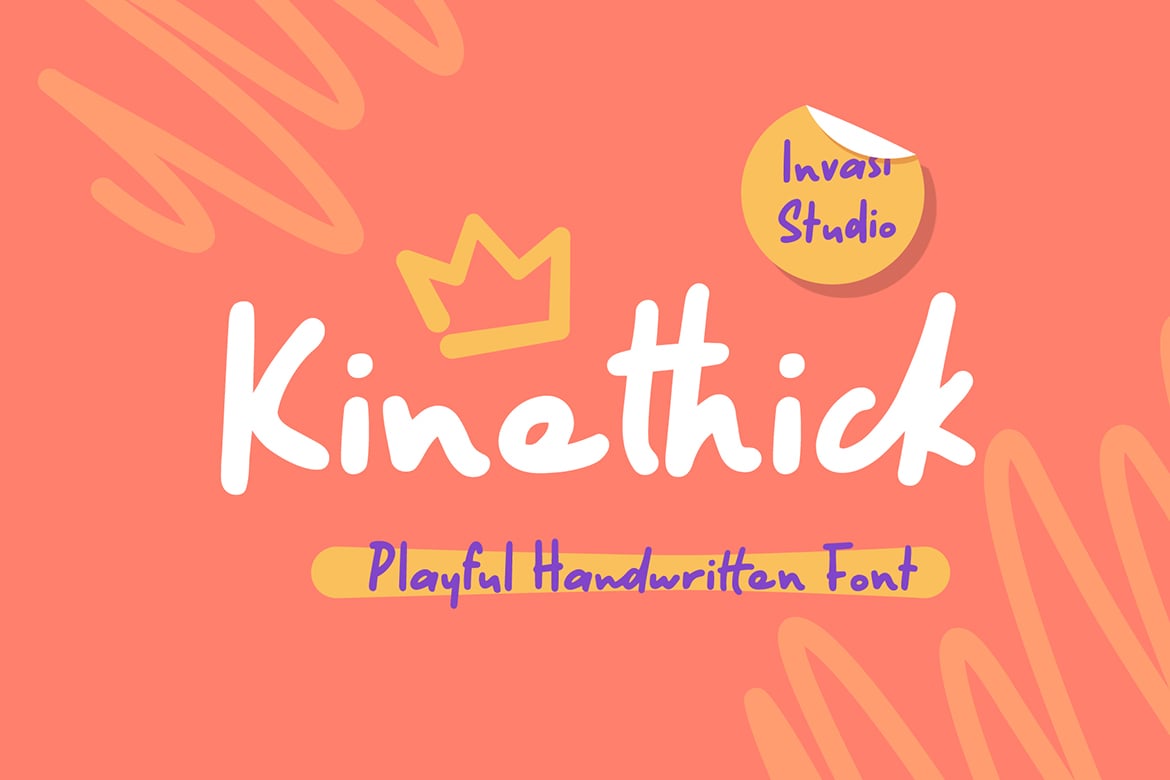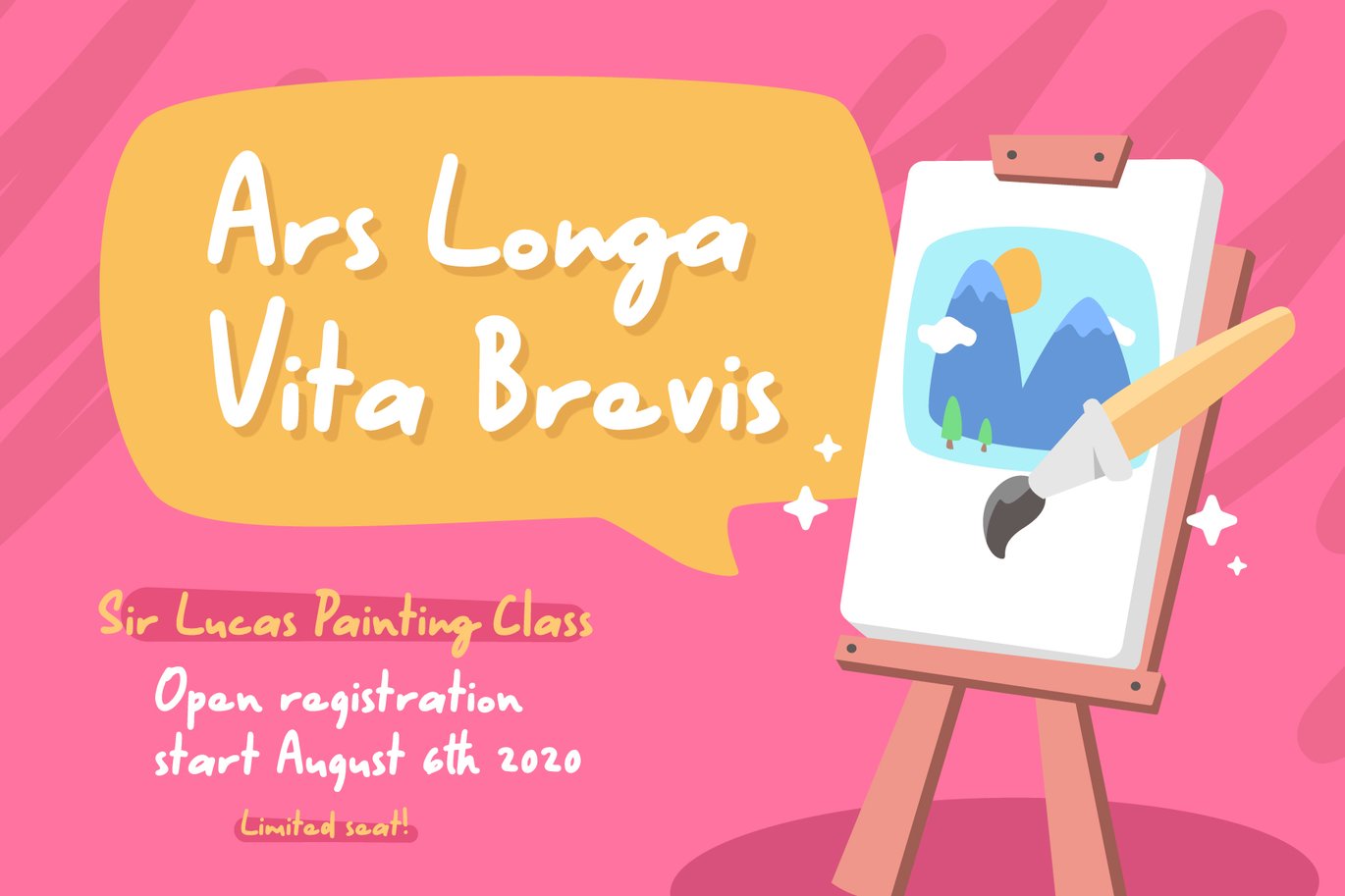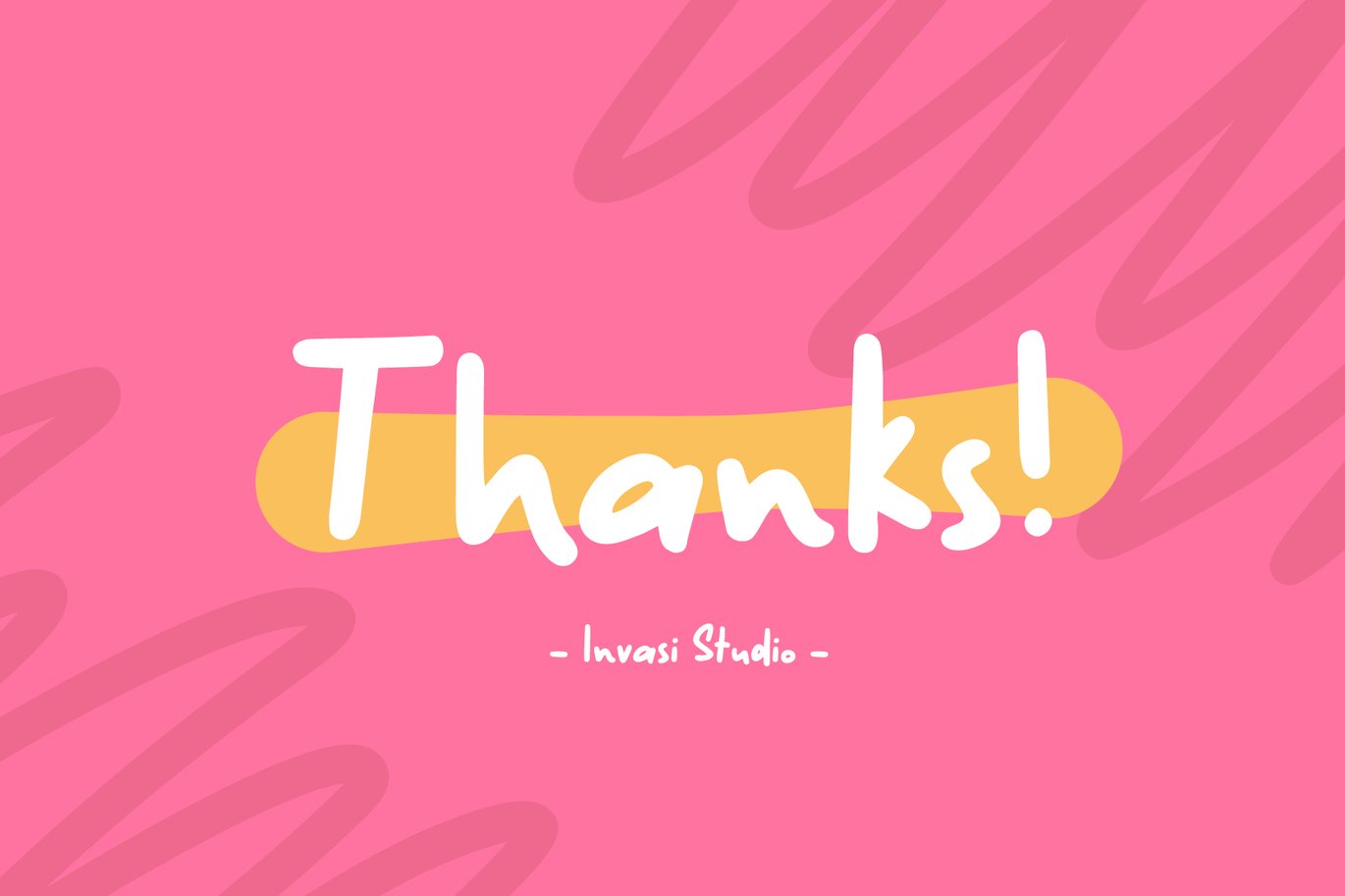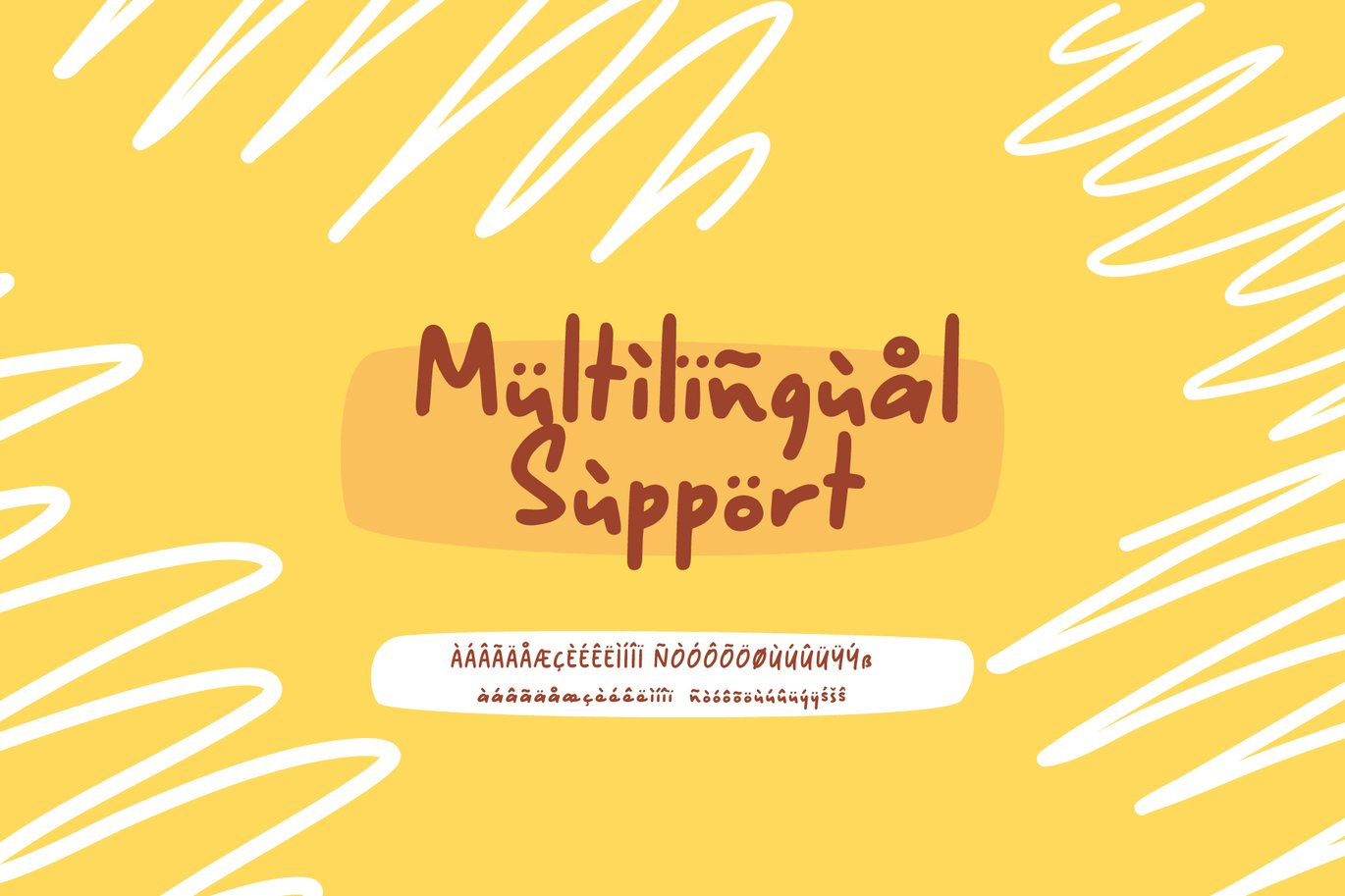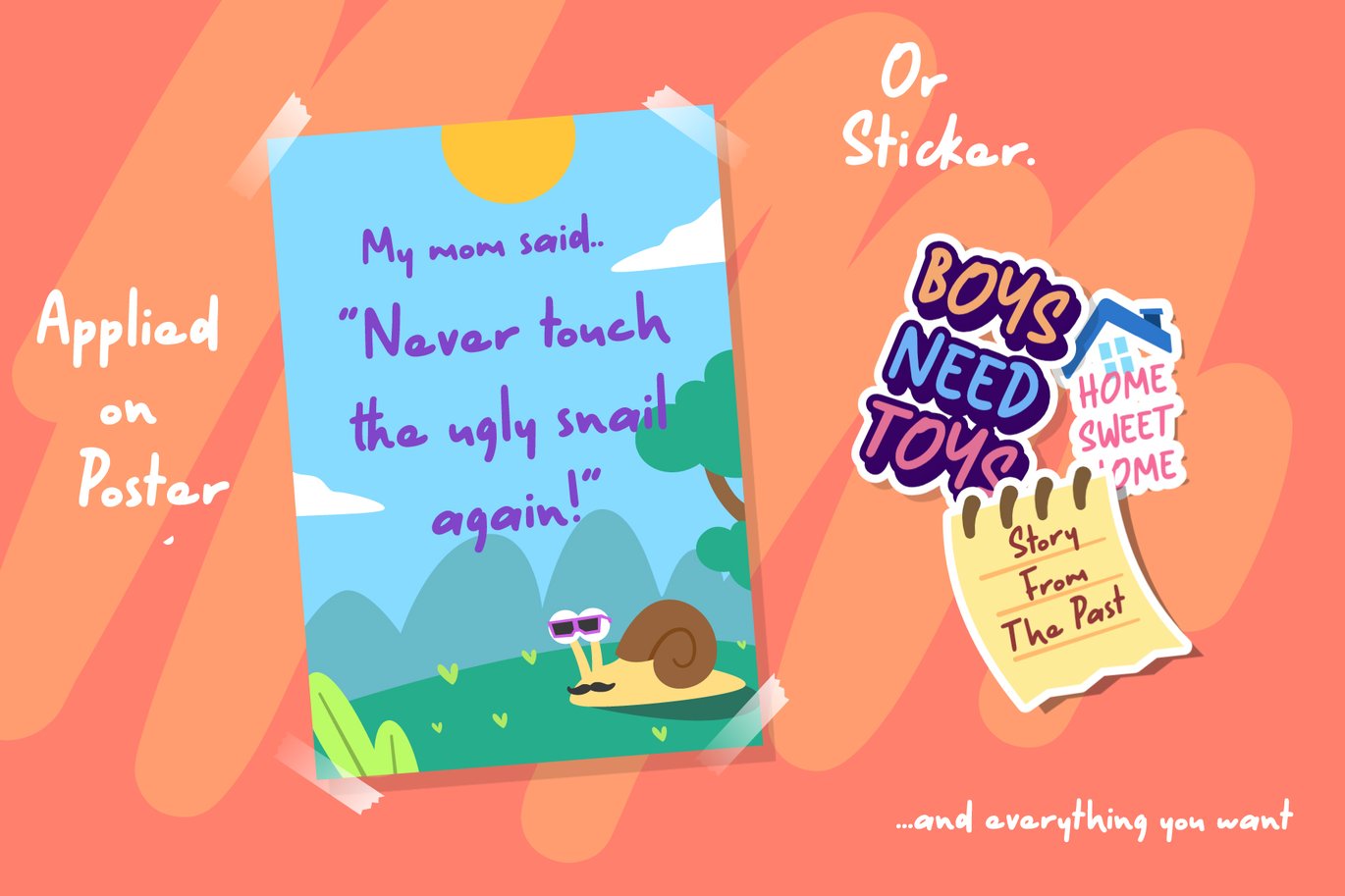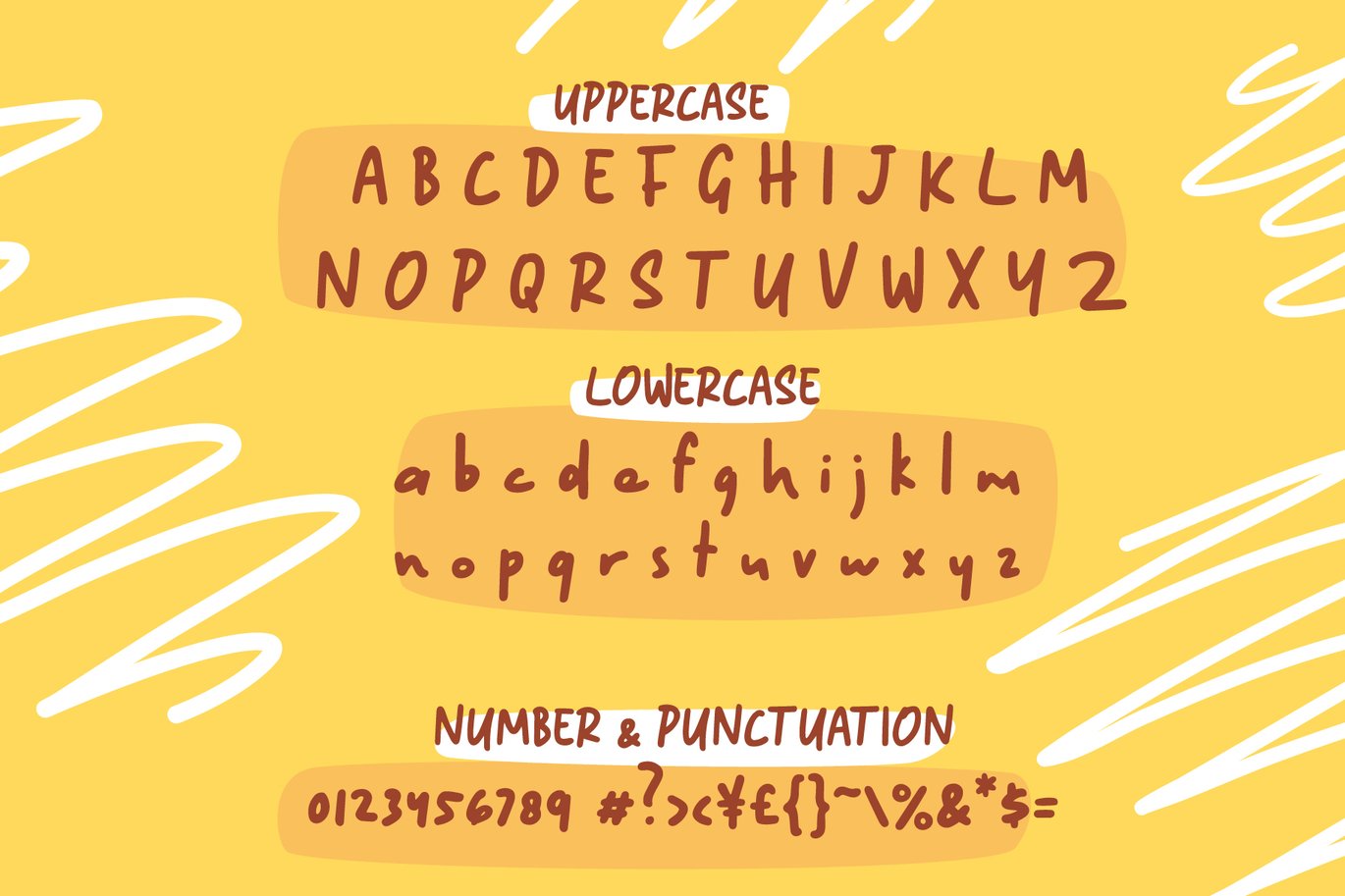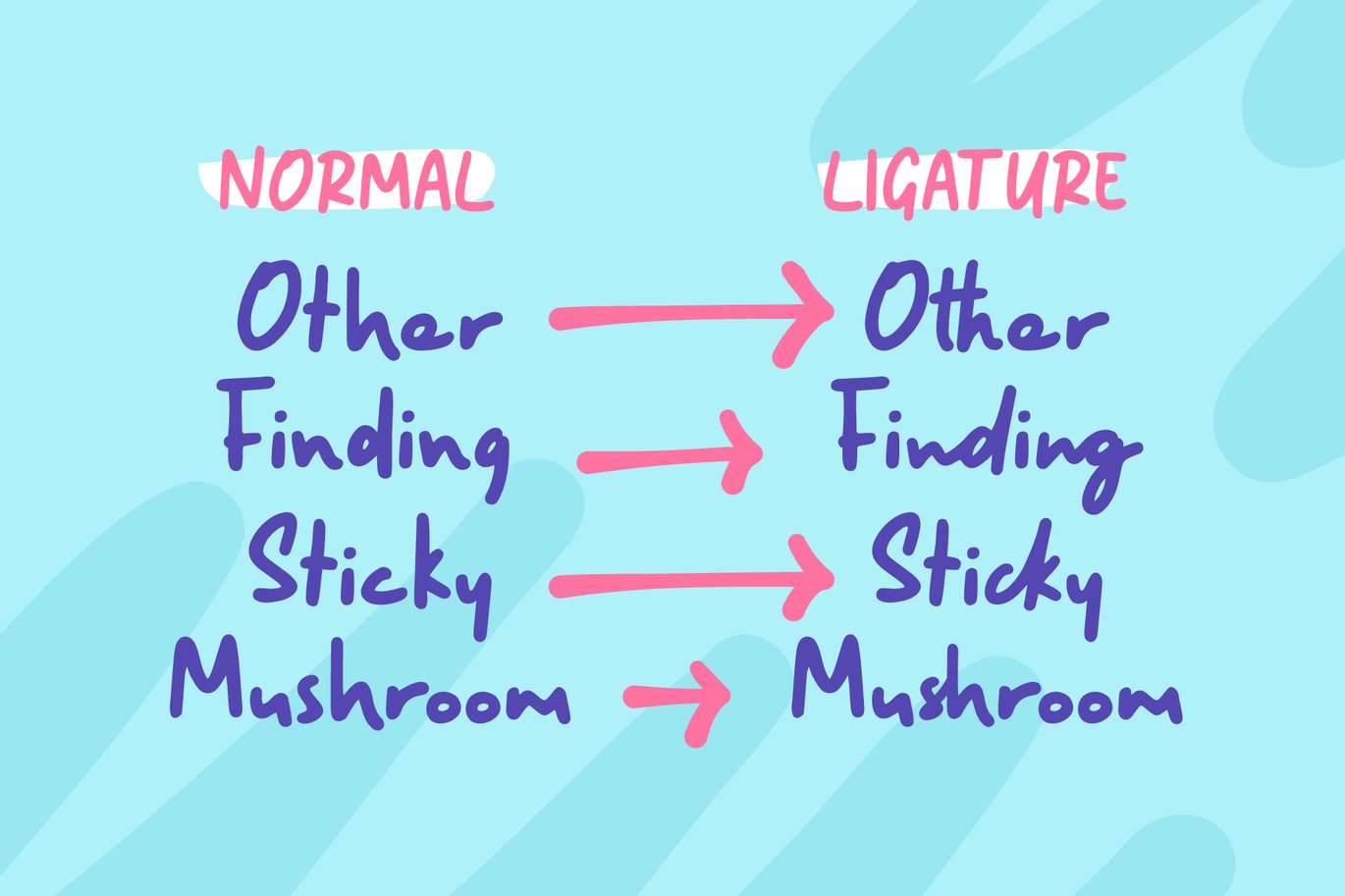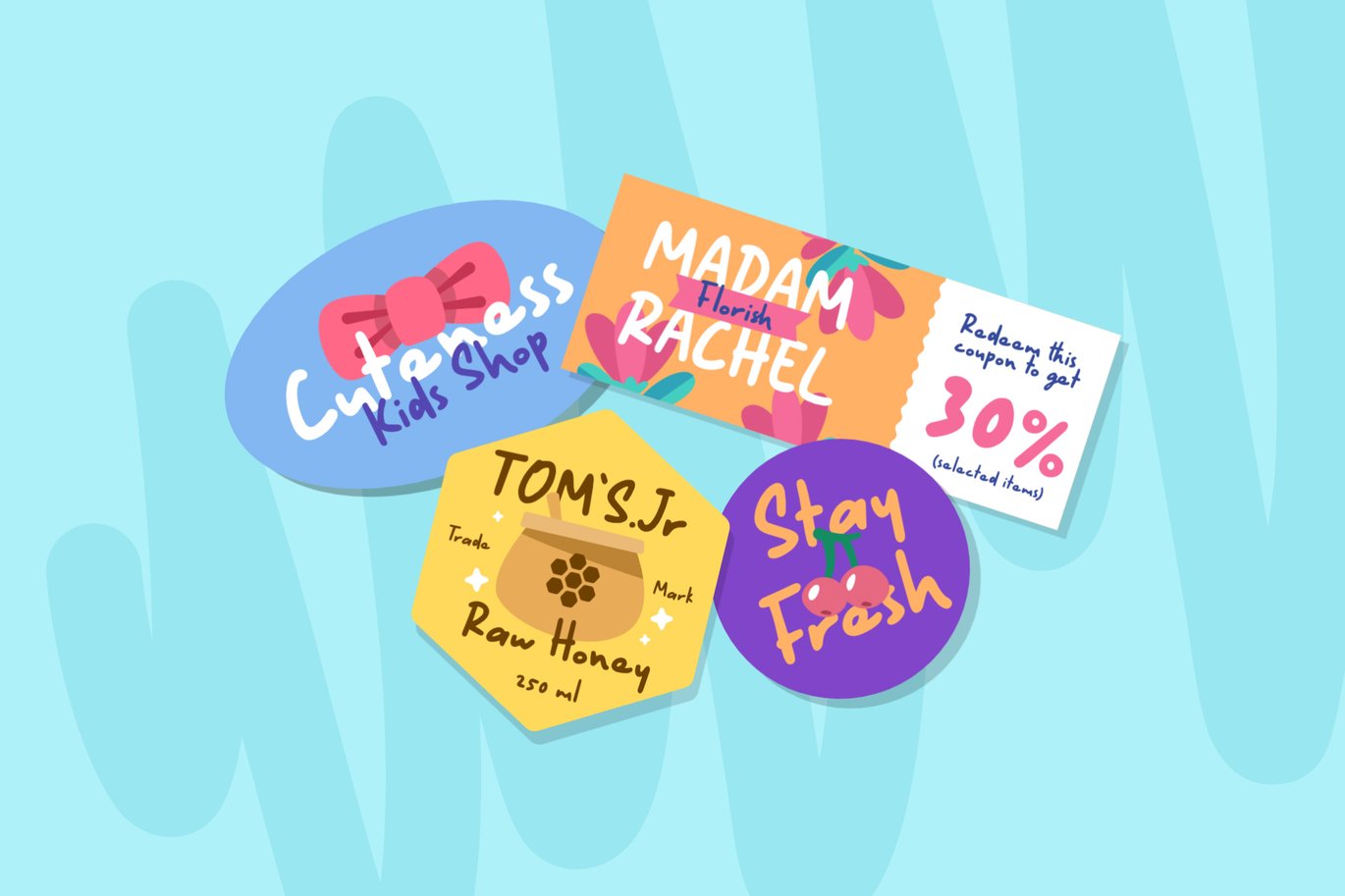
Kinethick | Playful Font
Kinethick is a Playful handwriting font special for Childish Display, that puts a smile on your projects and will inspire you to create something fun and memorable. Kinethick will help you to create special and touching typographical designs for fun or childish projects, It is perfect for headings, flyers, greeting cards, product packaging, book cover, printed quotes, logotype, apparel design, album covers.
- Multilanguage